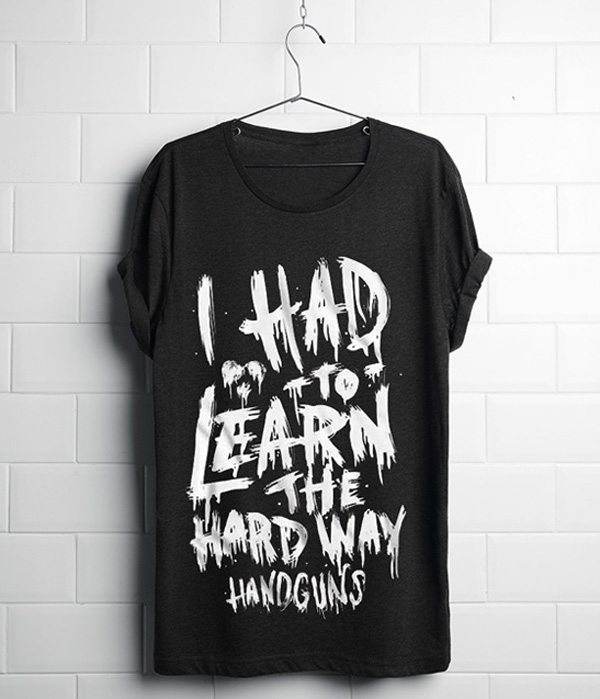
Fonts Free Font Of The Day #176 – Zike Font by Yayang Apryana May 8, 2015 Zike font The font is a personal project made with the result of random movements quickly, which involves passing concept events unexpectedly. I hope this article helps inspire you in making your work more stunning and useful in your project. Click the button below to download directly. Download